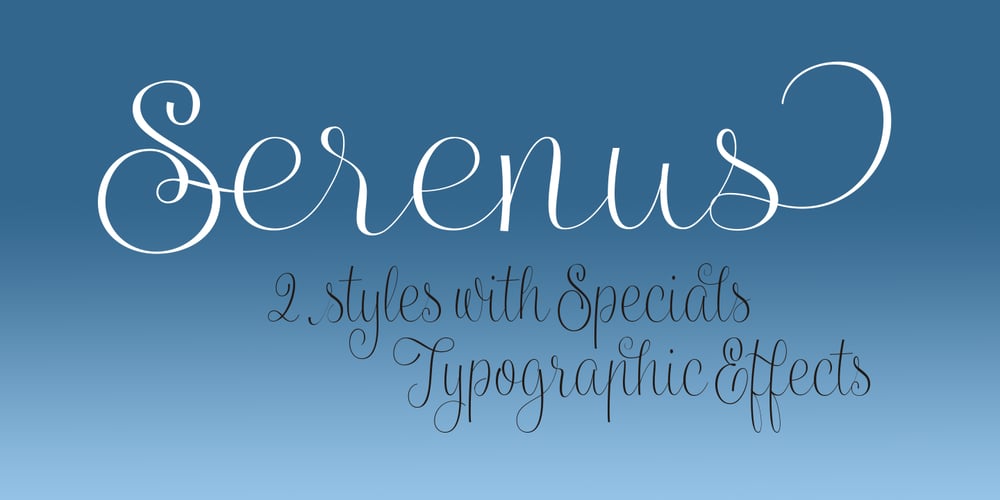
Serenus
Serenus font
Serenus Font Family was designed by Carine de Wandeleer and published by Eurotypo. Serenus contains 2 styles and family package options. “Serenus” is a new cursive typeface whose main characteristic is the dynamism of its spontaneous and agile “ductus”, with a subtle difference in thickness that gives it elegance and presence. This font comes with a condensed version that can be used for more extensive texts. Both fonts are enriched with OpenType features, Serenus has a total of 612 characters, in OpenType format, such as Stylistics Alternatives, Swashes, Ligatures, stylistic sets. To this, we add a support of central European language to adjust your design. Enabling them makes it possible to create beautiful and elegant typographic designs. Make sure you open up the OpenType panel in Illustrator, Photoshop, and InDesign (or any OpenType compatible application) or the character map to make use of all of those features. With virtually endless ways to personalize its use, Serenus helps you to design invitations, greeting cards, logos, business cards, fashion magazines, food, packaging and menus, book covers, websites and whatever your imagination!